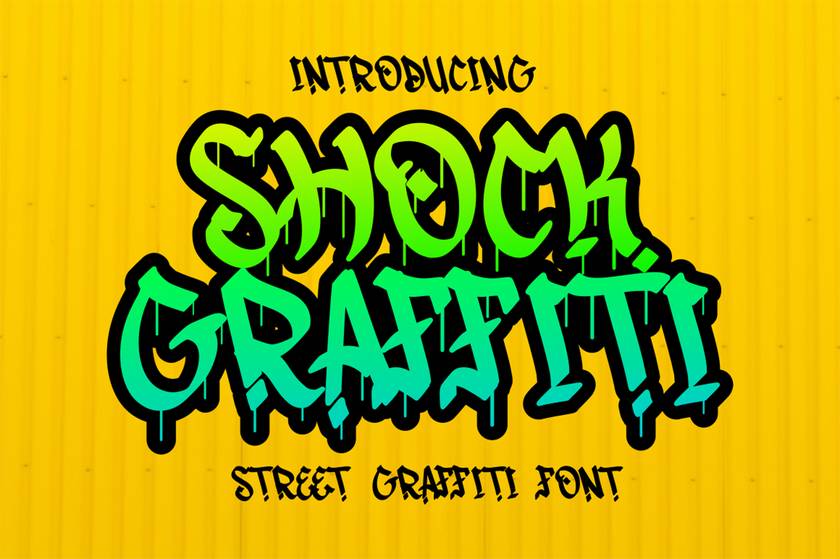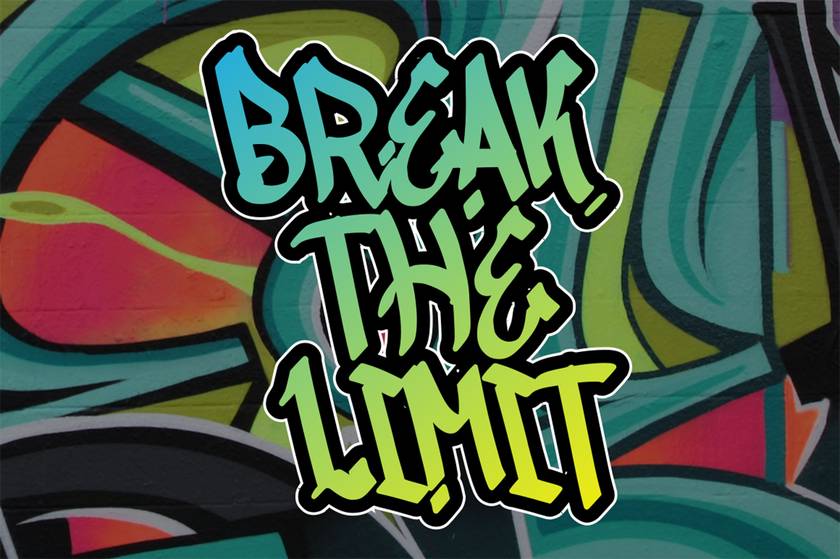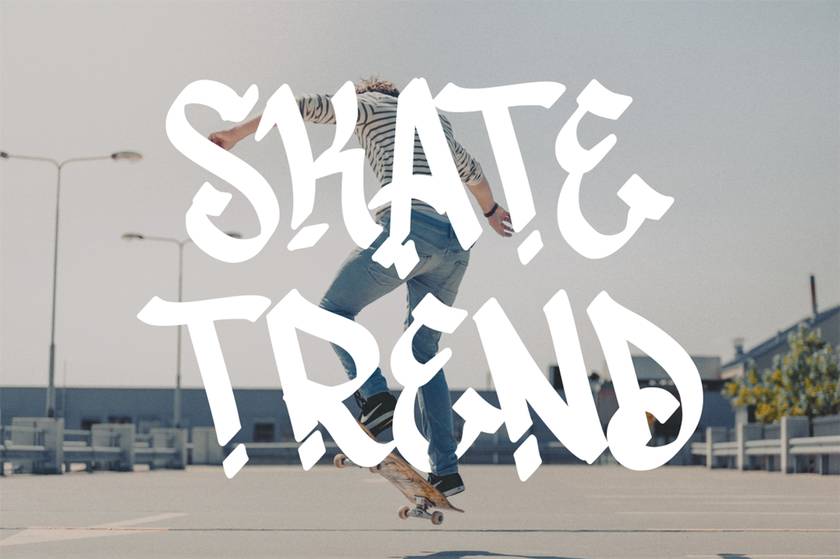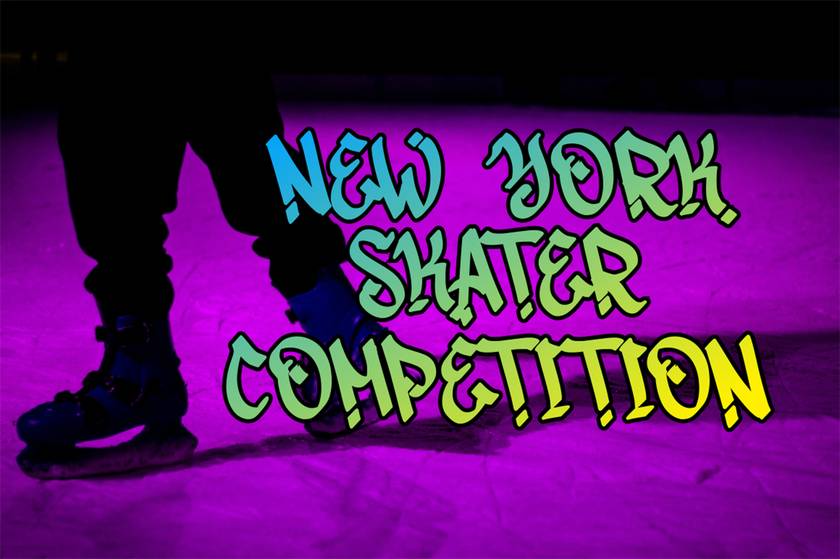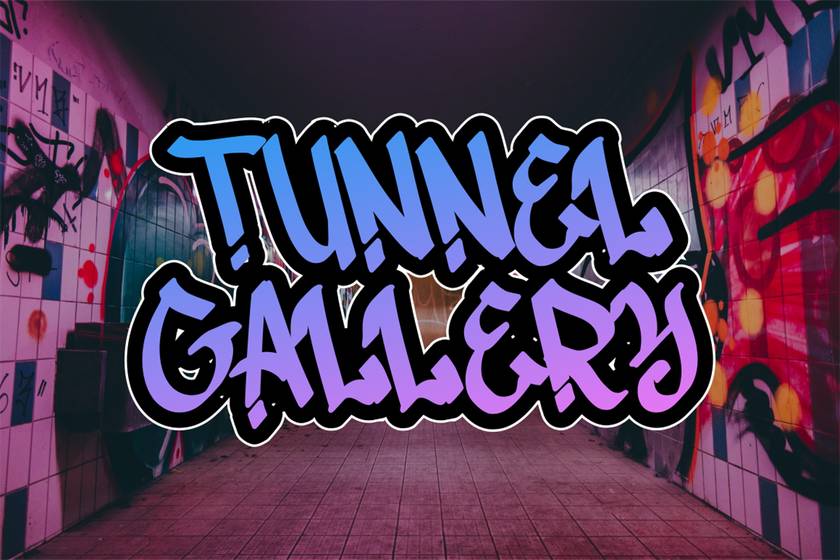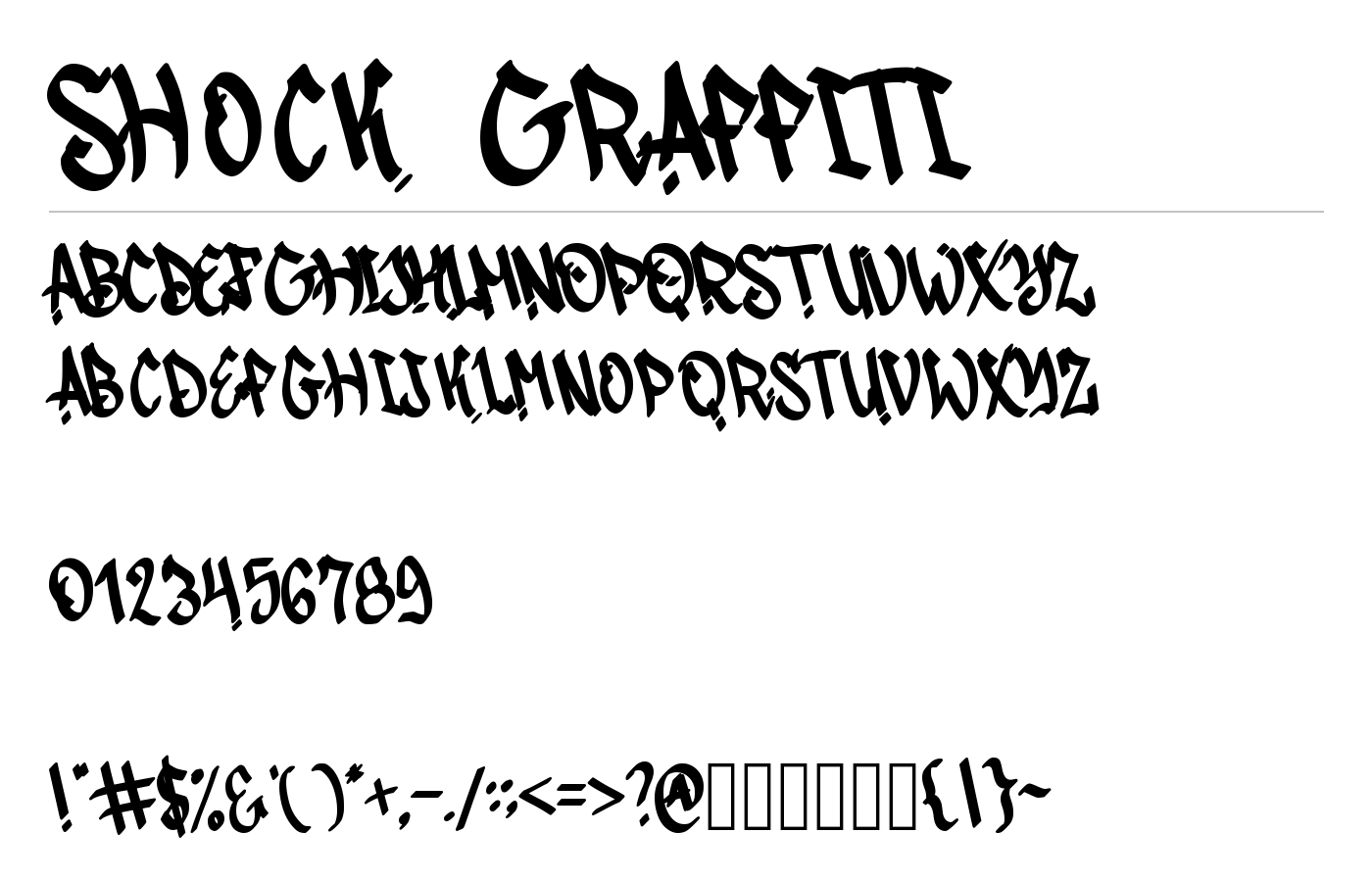
Shock Graffiti is a bold and energetic display font with a distinct street-art style, featuring sharp angles and irregular strokes that mimic hand-painted graffiti. Its uppercase letters have a dynamic, playful feel with tight spacing and a slightly condensed width, making it perfect for eye-catching headlines, urban-inspired branding, and edgy creative projects. This font brings a rebellious and youthful vibe, ideal for designs that want to express boldness and attitude.
Shock Graffiti Font
About Shock Graffiti Font
| Font family | Shock Graffiti Font |
| Designer | Nur Rohman Rizki |